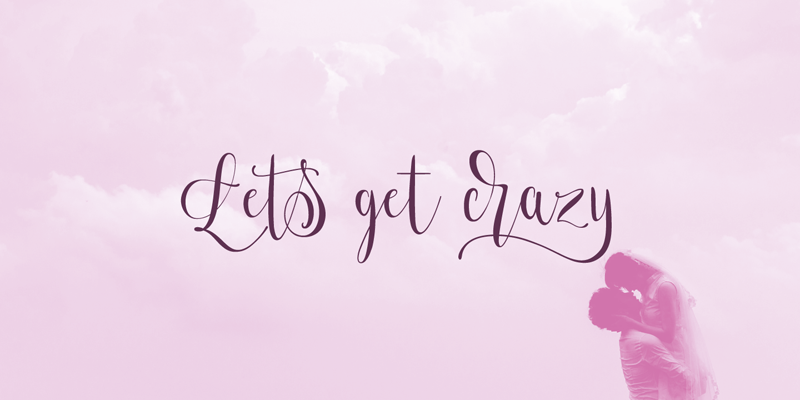
Preview and download Lets get crazy Font. Created by Pedro Alexandre Teixeira in Script Calligraphy styles with Free for personal use license.
This font is part of the �Lets get crazy� family, which pairs a script font (Lets get crazy) with a sans serif (Lets get crazy sans). Together they form the perfect pair that will effortlessly inspire your new design ideas. Combine the two fonts and make any of your creative project stand out. Besides, the commercial version has OpenType features like Kerning, Alternates, Ligatures, Stylistic Sets and Swashes. You can find it on Myfonts: https://www.myfonts.com/fonts/pedro-teixeira/lets-get-crazy/?refby=ptx Fonts: https://www.fonts.com/font/pedro-teixeira/lets-get-crazy or at FontBundles: https://fontbundles.net/vectalex/247826-lets-get-crazy/rel=ituqRl |